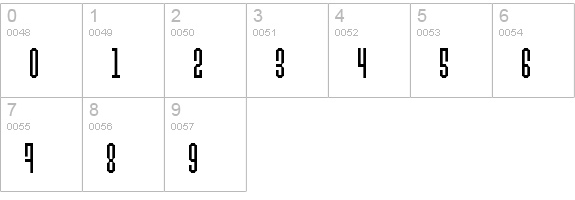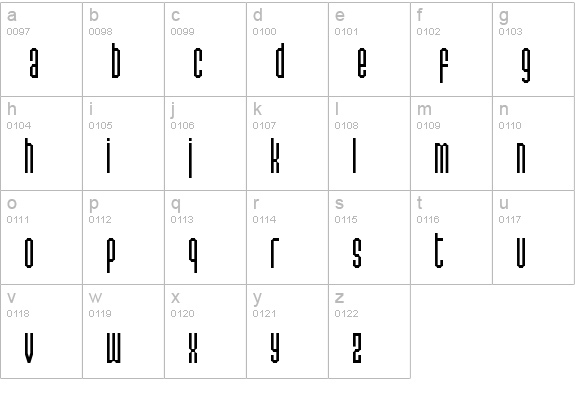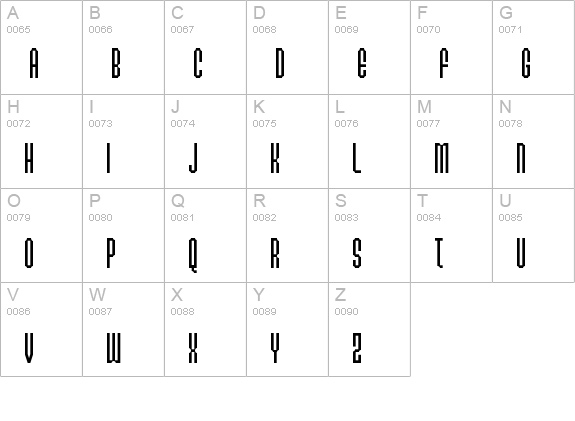
Introducing Permanent Daylight Font, a striking and versatile typeface that effortlessly captures the essence of eternal sunshine. This font is the epitome of modernity and sophistication, with its clean lines and sleek curves that exude a sense of perpetual brightness. Permanent Daylight Font is available in a wide range of weights, from delicate and elegant to bold and impactful, ensuring that it can adapt to any design project with ease. Its timeless appeal makes it suitable for a variety of creative endeavors, such as branding, packaging, editorial design, and much more. With its captivating charm and versatility, Permanent Daylight Font is a must-have for designers and creatives alike. Whether you're aiming for a fresh and contemporary look or a timeless and classic aesthetic, this font has got you covered. The best part? Permanent Daylight Font is completely free! You can download it conveniently at FontsMarket.com, where you'll find an extensive collection of fonts that cater to all your design needs. Embrace the beauty of this font and unleash your creativity without any constraints. So, why settle for mediocrity when you can embrace the brilliance of Permanent Daylight Font? Download it now and witness the transformative power it brings to your designs. Let your imagination soar with this exceptional font that is freely available at FontsMarket.com!